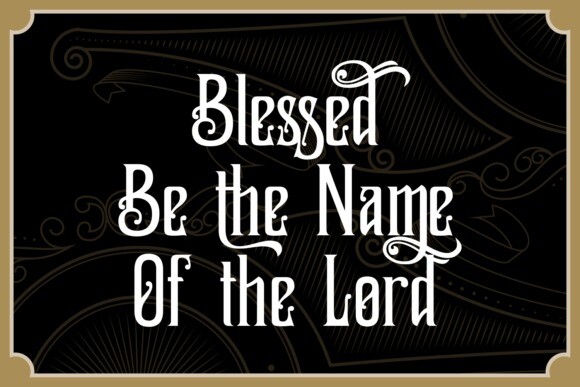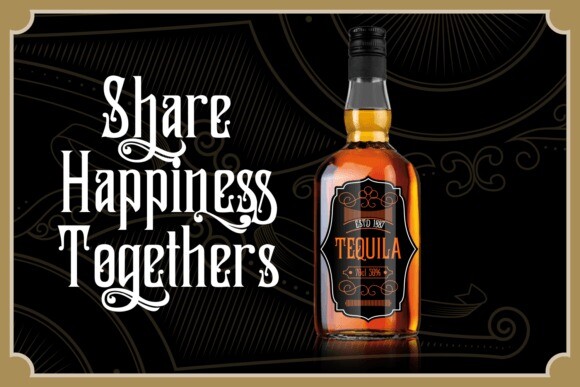
East Bouvent Font
East Bouvent Font is a classy, unique look serif display. It’s designed and shared by zamjumps-studio. East Bouvent based on references to old luxury lettering, retro, vintage illustrations, and Victorian calligraphy. The retro East Bouvent style is suitable for a number of applications such as product labels, advertising, interiors and more.